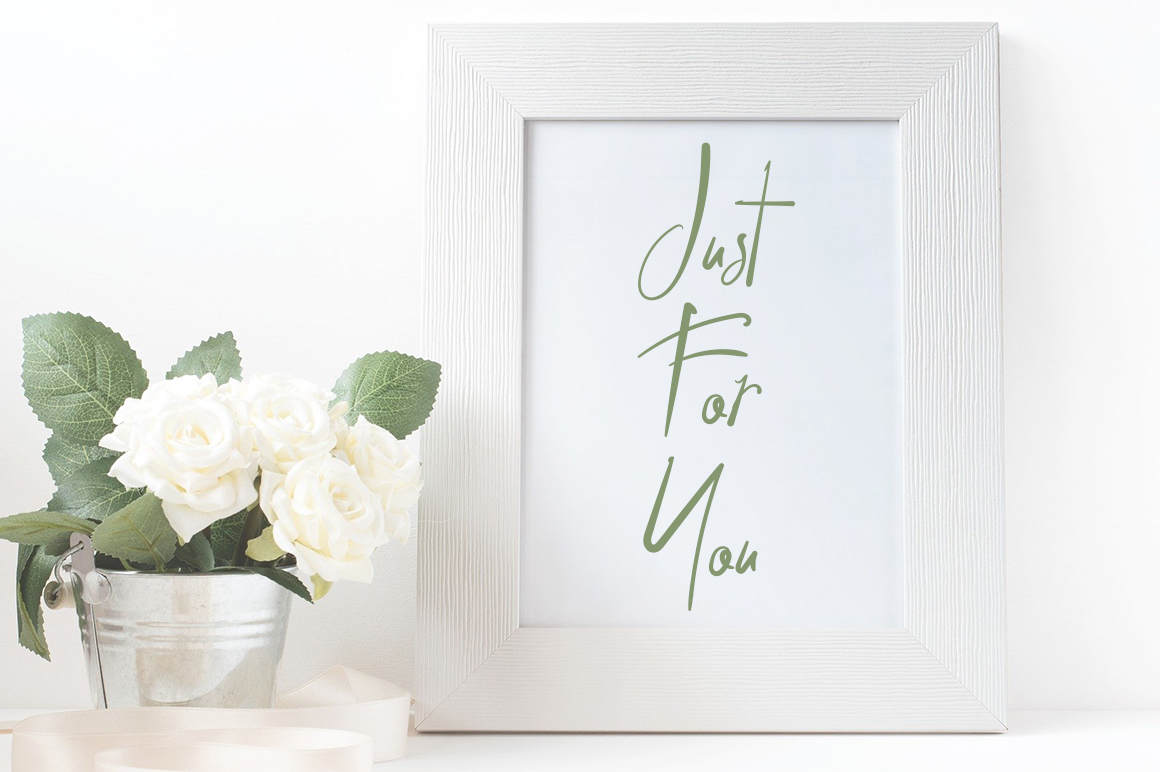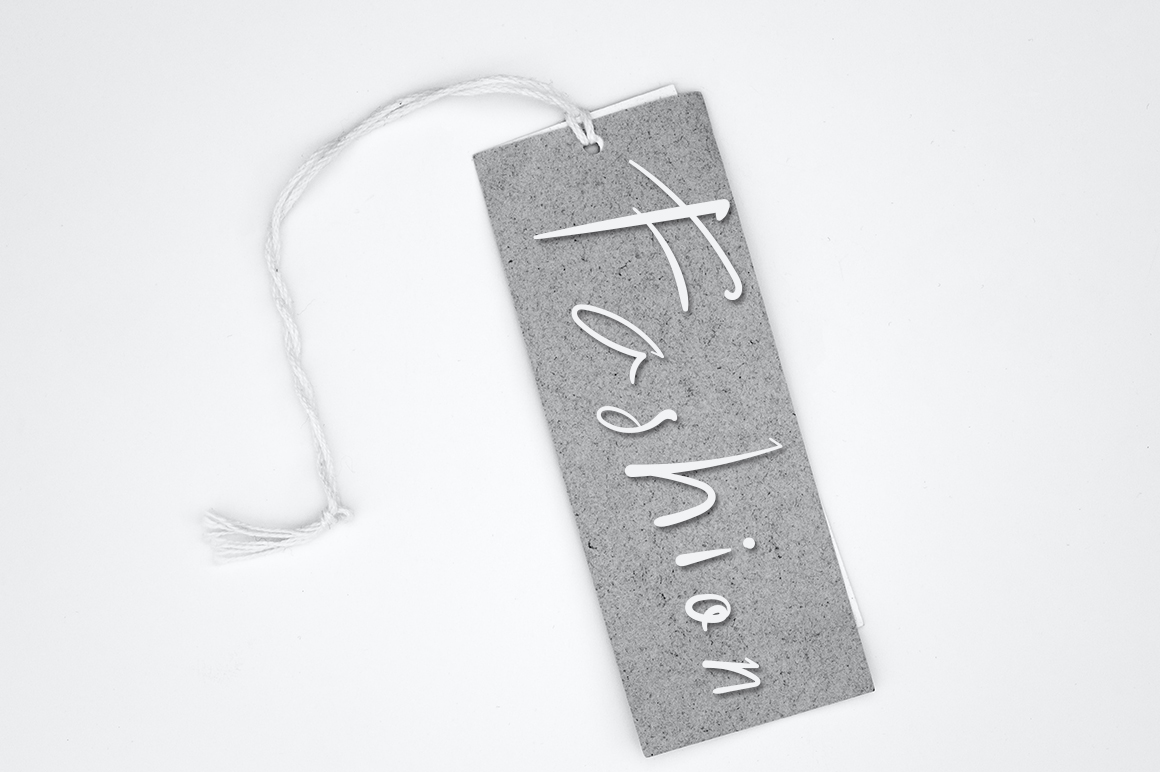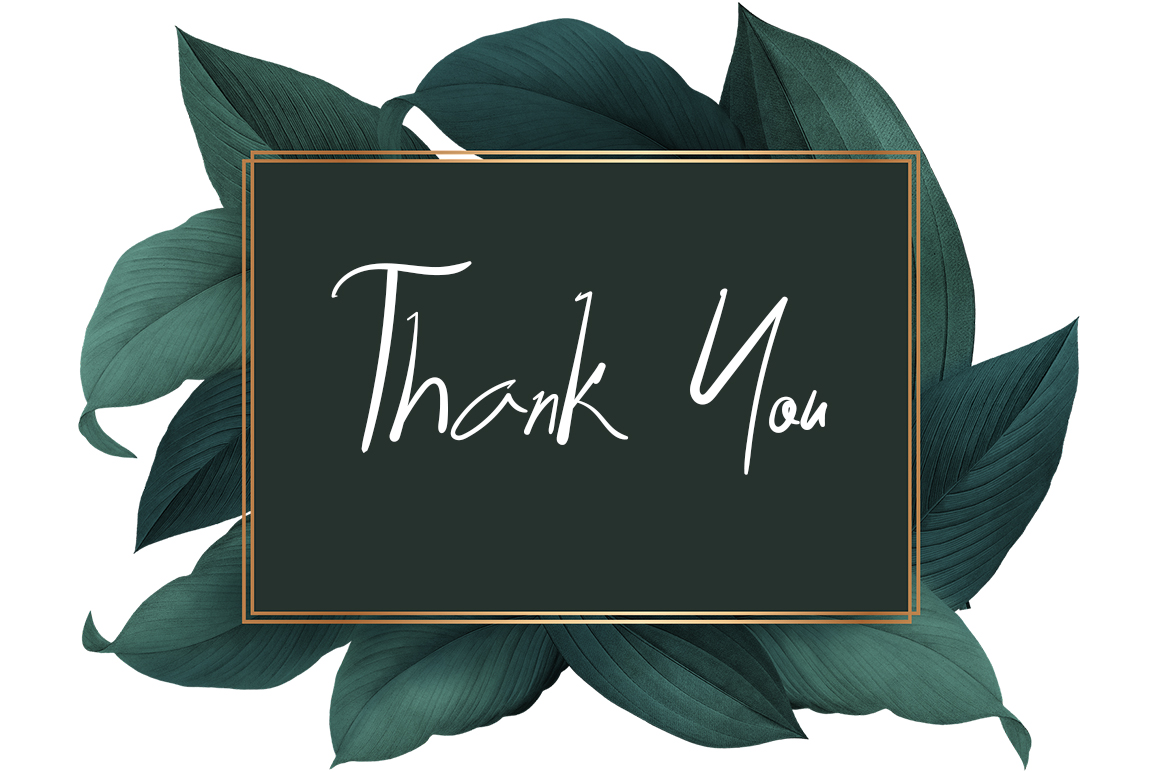
Solution Script Font
It’s a chic and delicate script font. It embodies playfulness and authenticity, and it works well with any project that needs a handwritten touch!